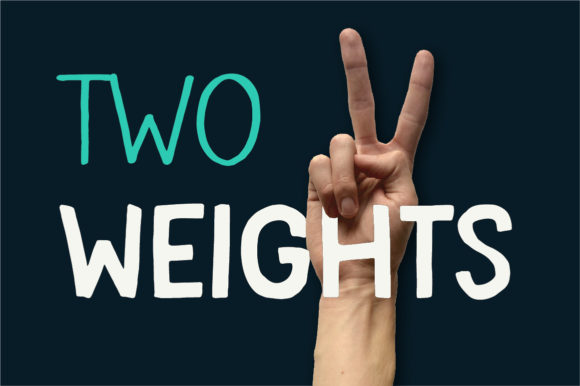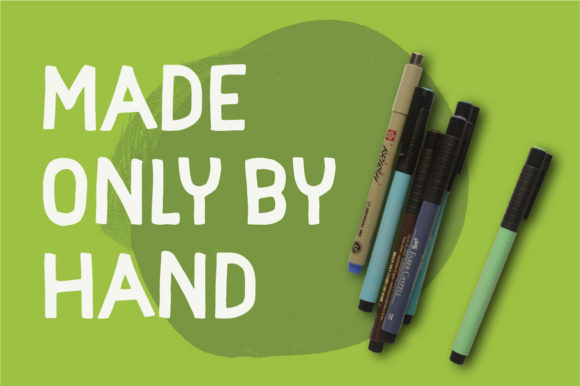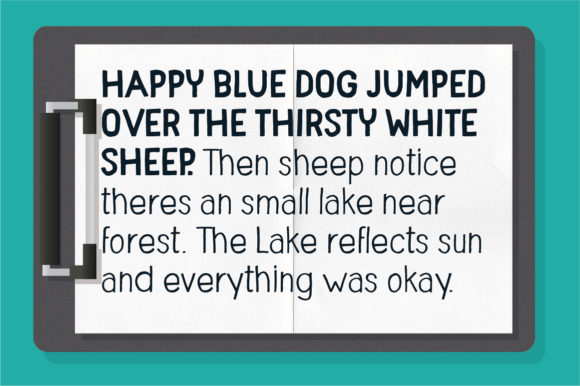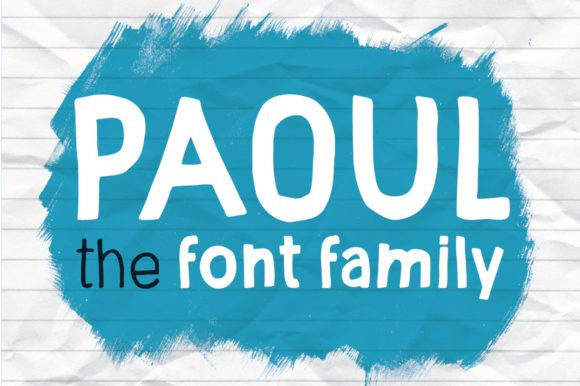
Introduction to Paoul Font
Paoul is a fun and friendly display font.
It has a neat and casual style and as a result, it could be an incredible fit for every informal or children related design .